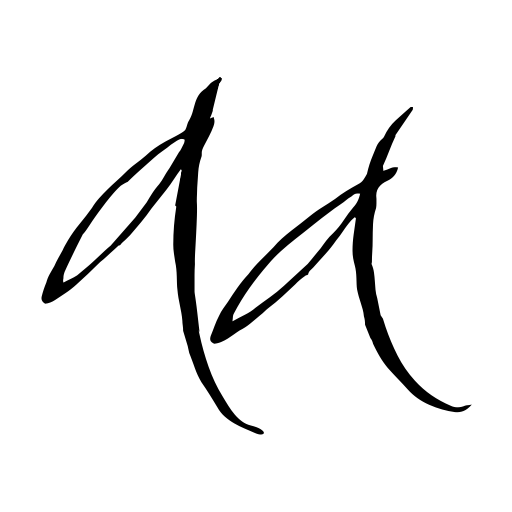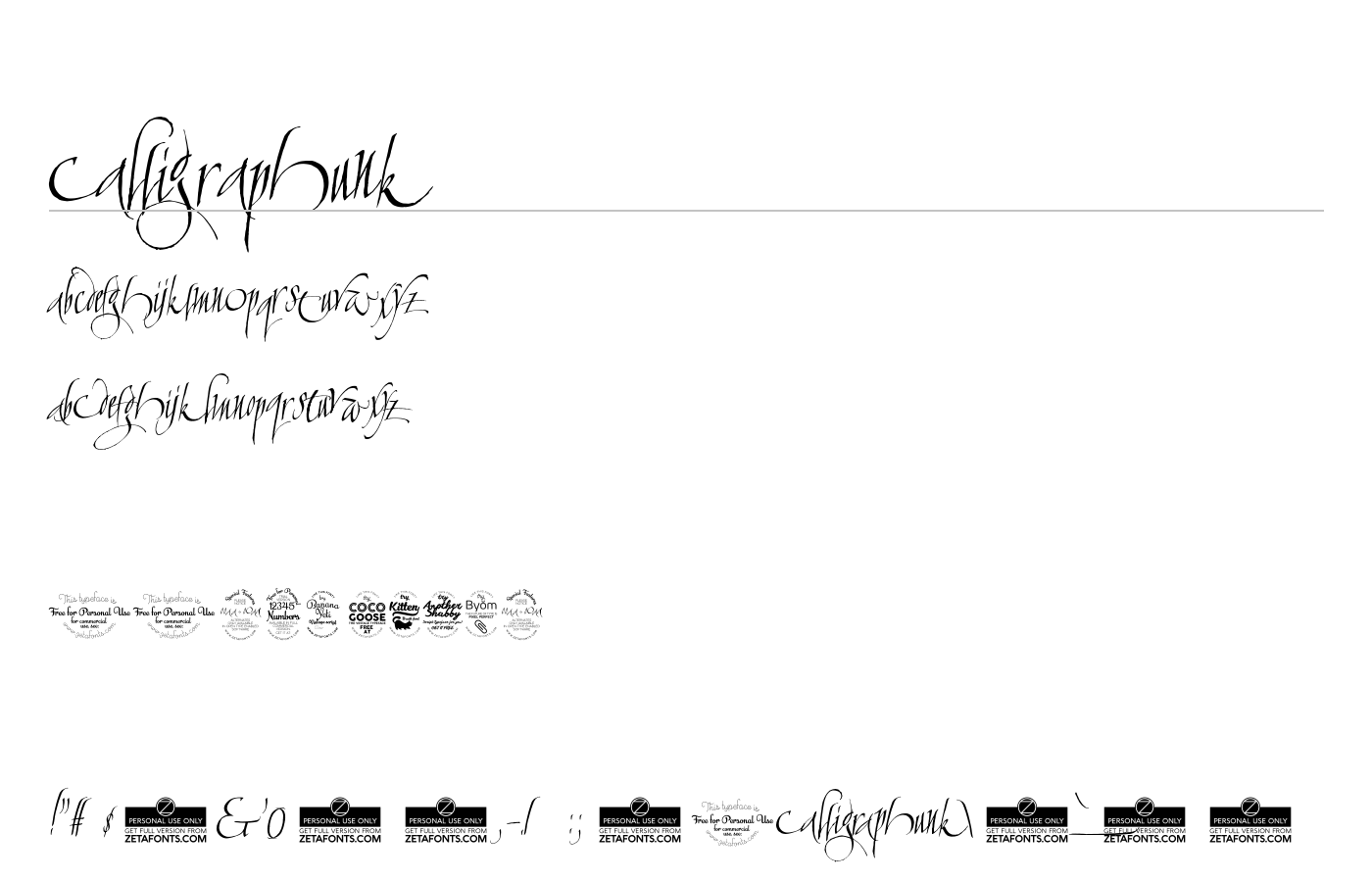
cAlLiGrApHuNk is a highly expressive handwritten script font that combines elegant calligraphic flourishes with a punk-inspired edge. Its thin, flowing strokes and dramatic contrast create a dynamic and artistic feel, making it perfect for creative branding, invitations, and projects that want to convey individuality and flair. This font shines in decorative uses where a unique, hand-crafted touch is desired.
cAlLiGrApHuNk Font
About cAlLiGrApHuNk Font